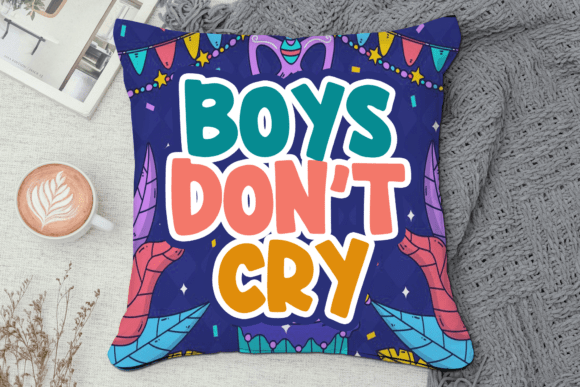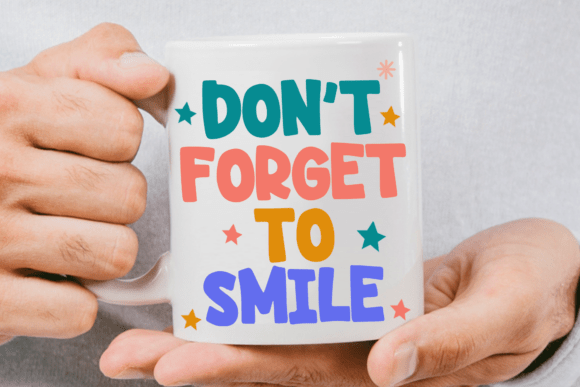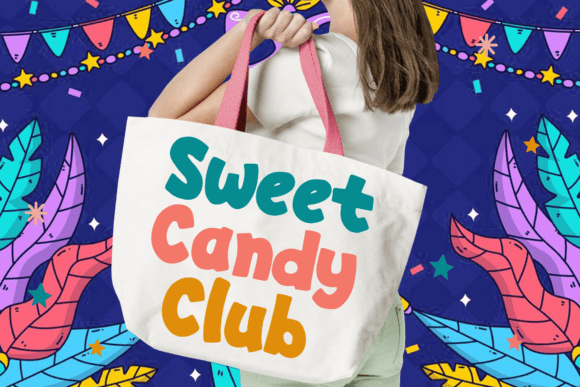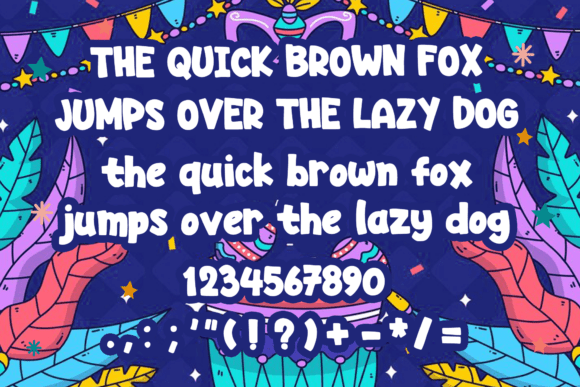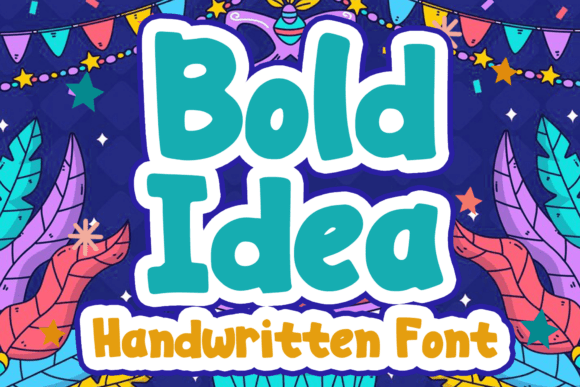
Unleash Your Creativity with Bold Idea Font: The Ultimate Display Font for Designers and Crafters
Are you tired of using the same old fonts in your designs? Look no further than Bold Idea, a vibrant cartoon display font that’s sure to make your work stand out from the crowd. With its playful and creative vibe, this font is perfect for designers and crafters who want to add a touch of fun and personality to their projects.
The Versatility of Bold Idea Font
One of the best things about Bold Idea is its versatility. This font can be used in a wide range of applications, from textile graphics and children’s book illustrations to festive party invitations and friendly greeting cards. Whether you’re working on a digital project or a physical one, Bold Idea is sure to make a statement.
Imagine using Bold Idea to create eye-catching posters, banners, or stickers that grab attention and leave a lasting impression. This font is perfect for designers who want to add a pop of personality to their work, and it’s also great for crafters who want to create unique and personalized projects.
The Characteristics of Bold Idea Font
So, what makes Bold Idea so special? For starters, it’s a provokingly bold font that’s designed to make a statement. Its cartoon-inspired design gives it a playful and fun vibe that’s perfect for projects that need a bit of personality. The font is also highly legible, making it easy to read and understand.
Another great thing about Bold Idea is its limitless potential. This font can be used in a wide range of contexts, from digital designs to print projects. It’s also highly customizable, so you can experiment with different colors, textures, and effects to create a unique look that’s all your own.
Using Bold Idea in Your Designs
So, how can you use Bold Idea in your designs? The possibilities are endless! Here are a few ideas to get you started:
• Textile graphics: Use Bold Idea to create fun and colorful designs for t-shirts, tote bags, and other fabric projects.
• Children’s book illustrations: Add a touch of whimsy and personality to your children’s book illustrations with Bold Idea.
• Festive party invitations: Create eye-catching party invitations that set the tone for a fun and festive celebration.
• Friendy greeting cards: Use Bold Idea to create personalized greeting cards that are sure to bring a smile to the recipient’s face.
• Stickers and labels: Create custom stickers and labels that showcase your brand’s personality and style.
Tips for Getting the Most Out of Bold Idea
To get the most out of Bold Idea, don’t be afraid to experiment and try new things. Here are a few tips to keep in mind:
• Play with colors: Bold Idea looks great in bright, bold colors. Don’t be afraid to experiment with different color combinations to find the one that works best for your project.
• Add textures and effects: Add some extra depth and interest to your designs by experimenting with different textures and effects.
• Mix and match: Combine Bold Idea with other fonts and design elements to create a unique and personalized look.
In conclusion, Bold Idea is a versatile and fun display font that’s perfect for designers and crafters who want to add a touch of personality to their projects. With its playful and creative vibe, limitless potential, and highly legible design, Bold Idea is sure to make a statement in any application. So why not give it a try and see the infectious fun and uplifting energy it brings to your designs?
Whether you’re working on a digital project or a physical one, Bold Idea is the perfect choice for anyone who wants to make a bold and eye-catching statement. So go ahead, unleash your creativity, and see what amazing things you can create with Bold Idea!